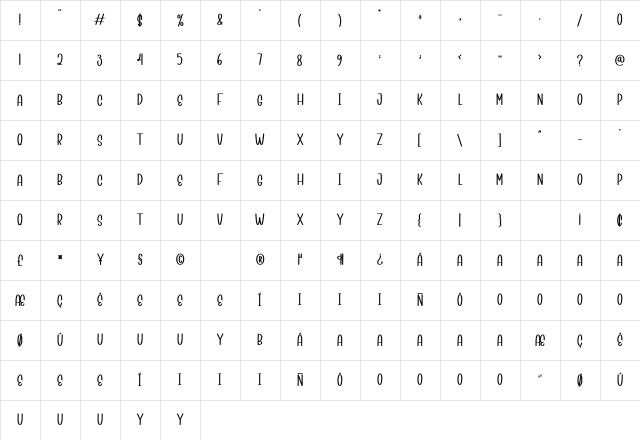
Hibernation Regular Free Font
Hibernation Regular
Design Context for Hibernation
Hibernation is a composed and adaptable typeface that performs quietly and consistently across a wide range of design contexts.